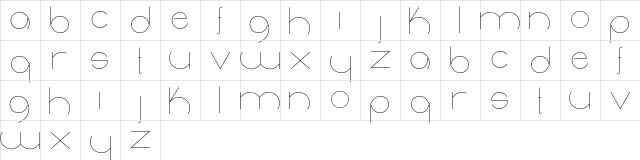
radiance Medium
Design Context for radiance Typeface
radiance is a composed and adaptable typeface that performs quietly and consistently across a wide range of design contexts.